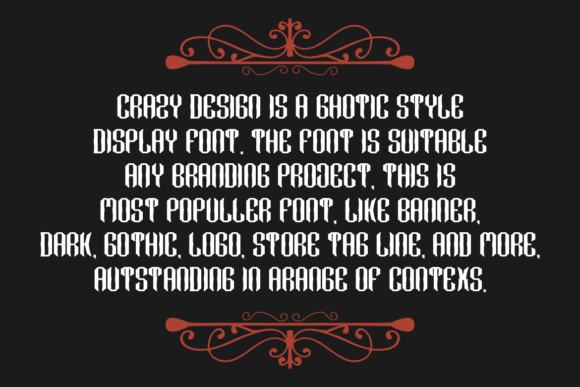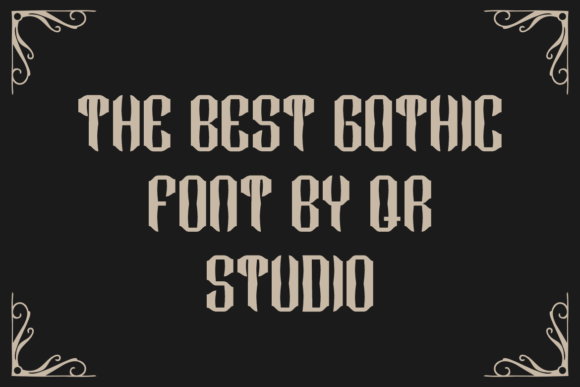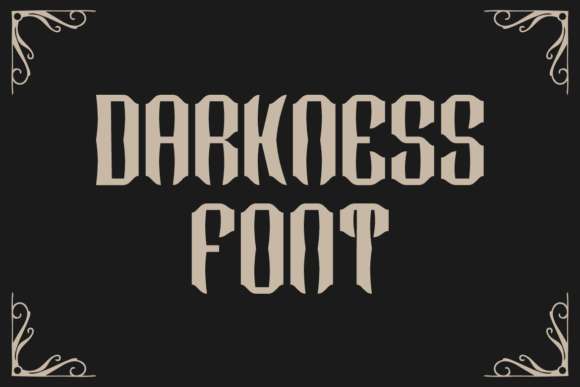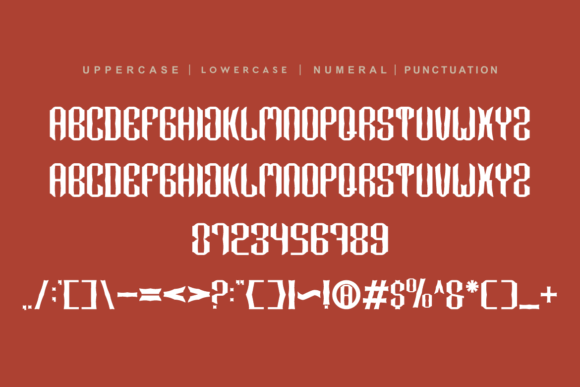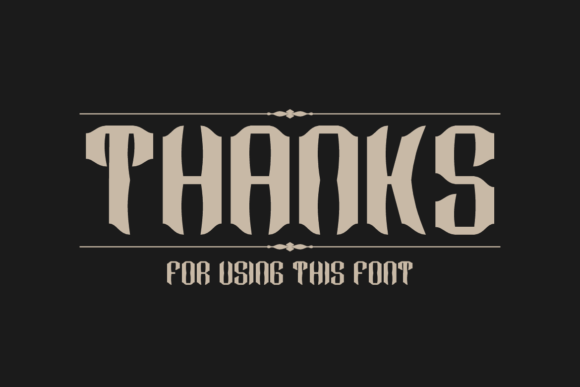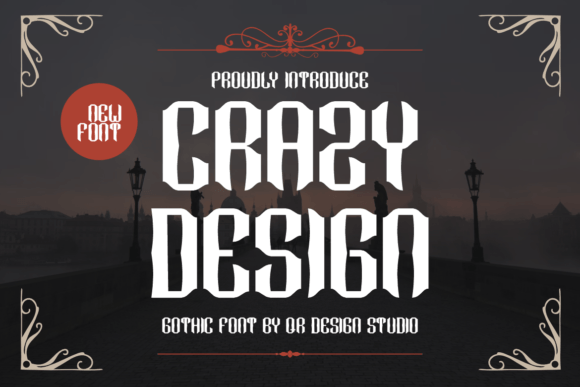
Crazy Design Font: Unleash Your Creativity with this Bold and Authentic Display Font
Are you tired of using the same old fonts for your design projects? Look no further! Introducing Crazy Design Font, a bold and authentic display font that’s perfect for adding a touch of excitement to your branding projects. Whether you’re working on a logo, sports-themed design, or any other creative project, Crazy Design Font is sure to make a statement.
What Makes Crazy Design Font Stand Out?
Crazy Design Font is a versatile font that’s designed to be outstanding in a wide range of contexts. Its bold and authentic style makes it perfect for headlines, titles, and any other design element that needs to grab attention. The font’s unique and quirky design ensures that your project will stand out from the crowd and leave a lasting impression on your audience.
Perfect for Branding Projects
Crazy Design Font is ideal for branding projects that require a bold and eye-catching font. Whether you’re creating a logo, brochure, or website, this font is sure to make your design pop. Its versatility also makes it suitable for a wide range of industries, from sports and entertainment to fashion and lifestyle.
Key Features of Crazy Design Font
- Bold and Authentic Style: Crazy Design Font features a bold and authentic style that’s perfect for making a statement.
- Versatile and Flexible: The font is suitable for a wide range of design projects, from logos and brochures to websites and social media graphics.
- Unique and Quirky Design: The font’s unique design ensures that your project will stand out from the crowd and leave a lasting impression on your audience.
- Easily Readable: Despite its bold style, Crazy Design Font is easily readable, making it perfect for use in a variety of contexts.
How to Use Crazy Design Font in Your Design Projects
Using Crazy Design Font in your design projects is easy. Here are a few tips to get you started:
- Use it as a Headline Font: Crazy Design Font is perfect for use as a headline font, adding a bold and eye-catching touch to your design.
- Pair it with Other Fonts: The font pairs well with other fonts, making it easy to create a unique and visually appealing design.
- Experiment with Different Colors: Crazy Design Font looks great in a variety of colors, so don’t be afraid to experiment and find the perfect color for your design.
Why Designers and Crafters Love Crazy Design Font
Designers and crafters love Crazy Design Font for its unique and quirky design. The font’s bold and authentic style makes it perfect for adding a touch of excitement to any design project. Its versatility and flexibility also make it a favorite among designers, who appreciate the ability to use it in a wide range of contexts.